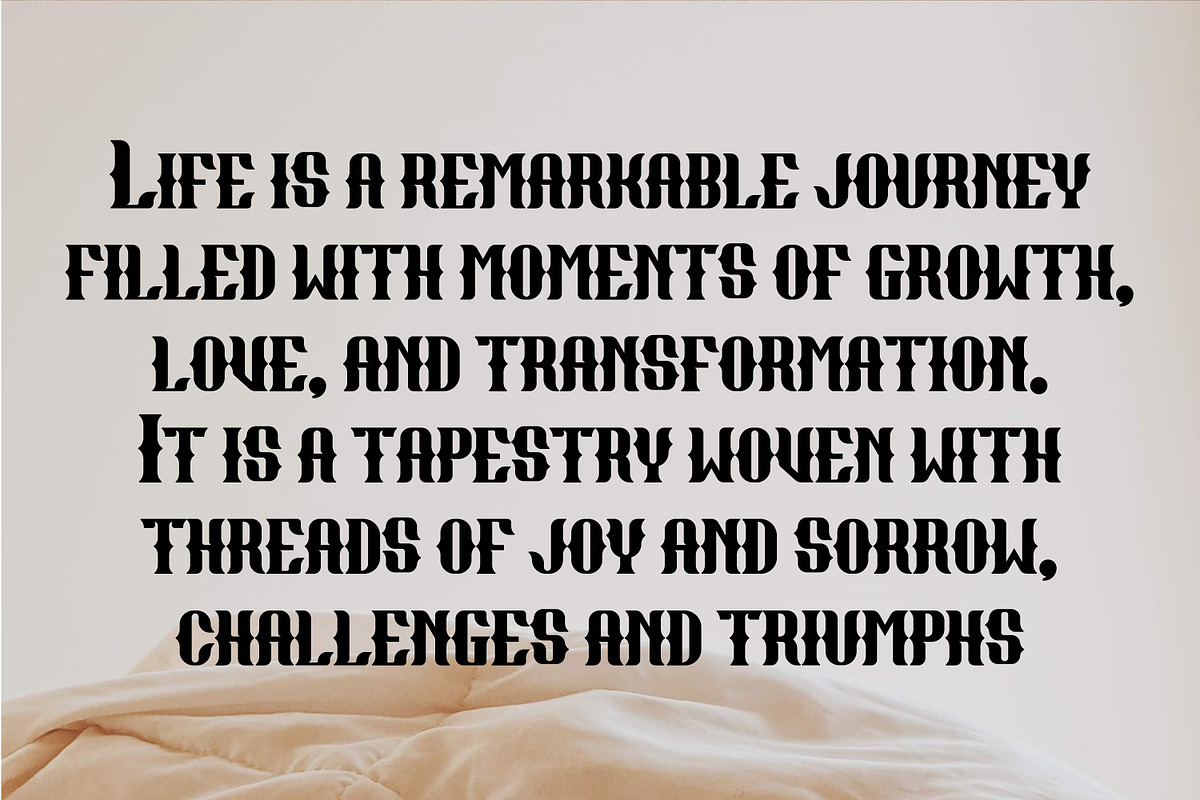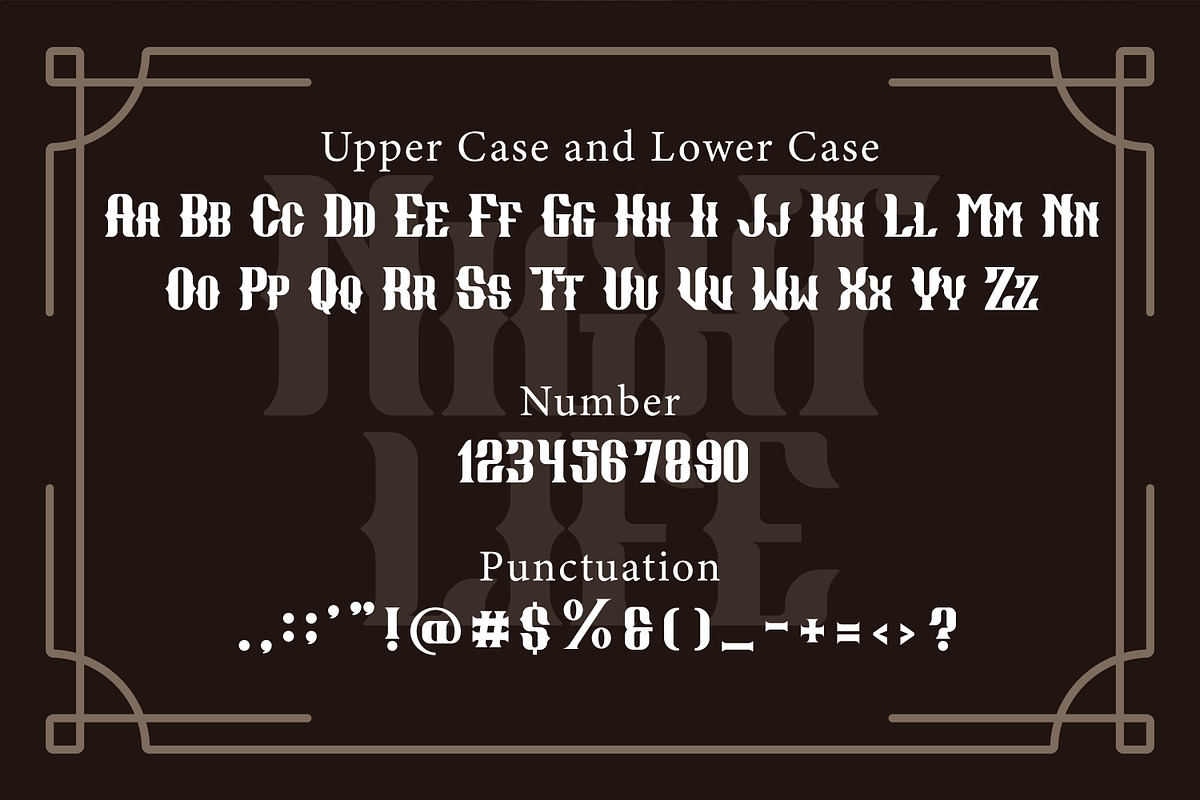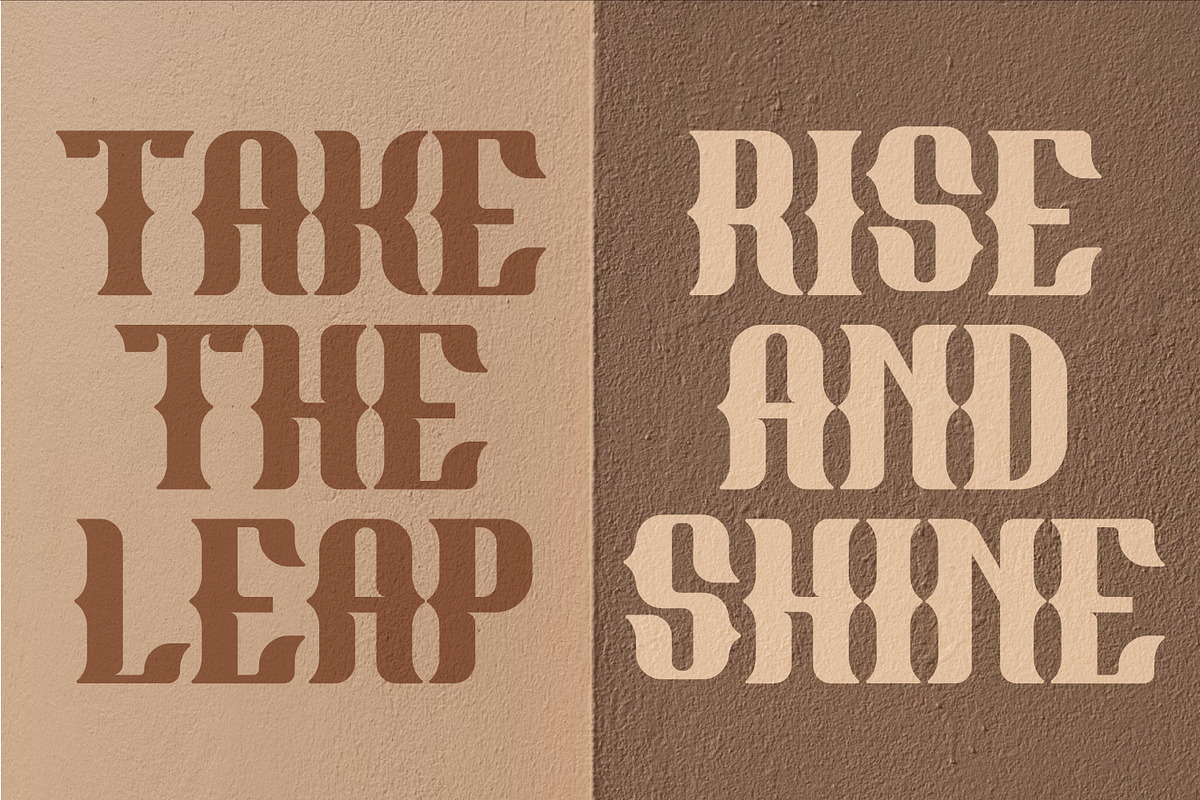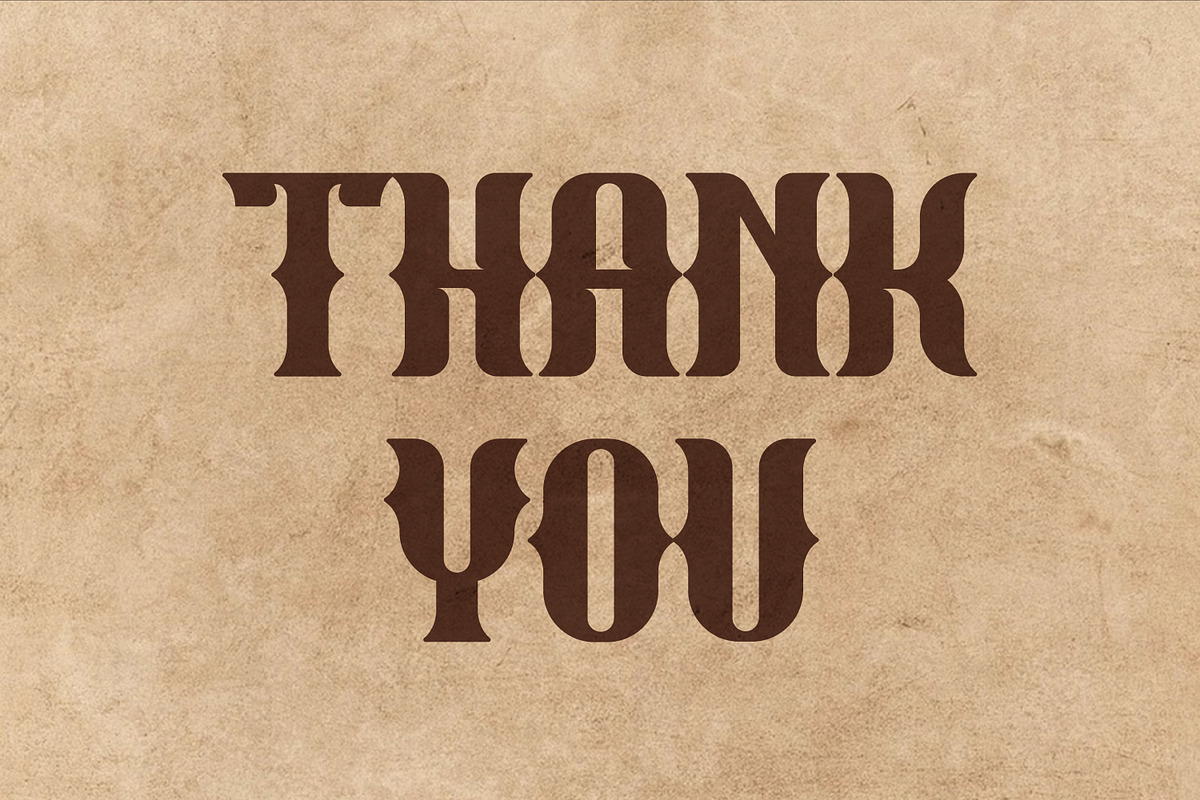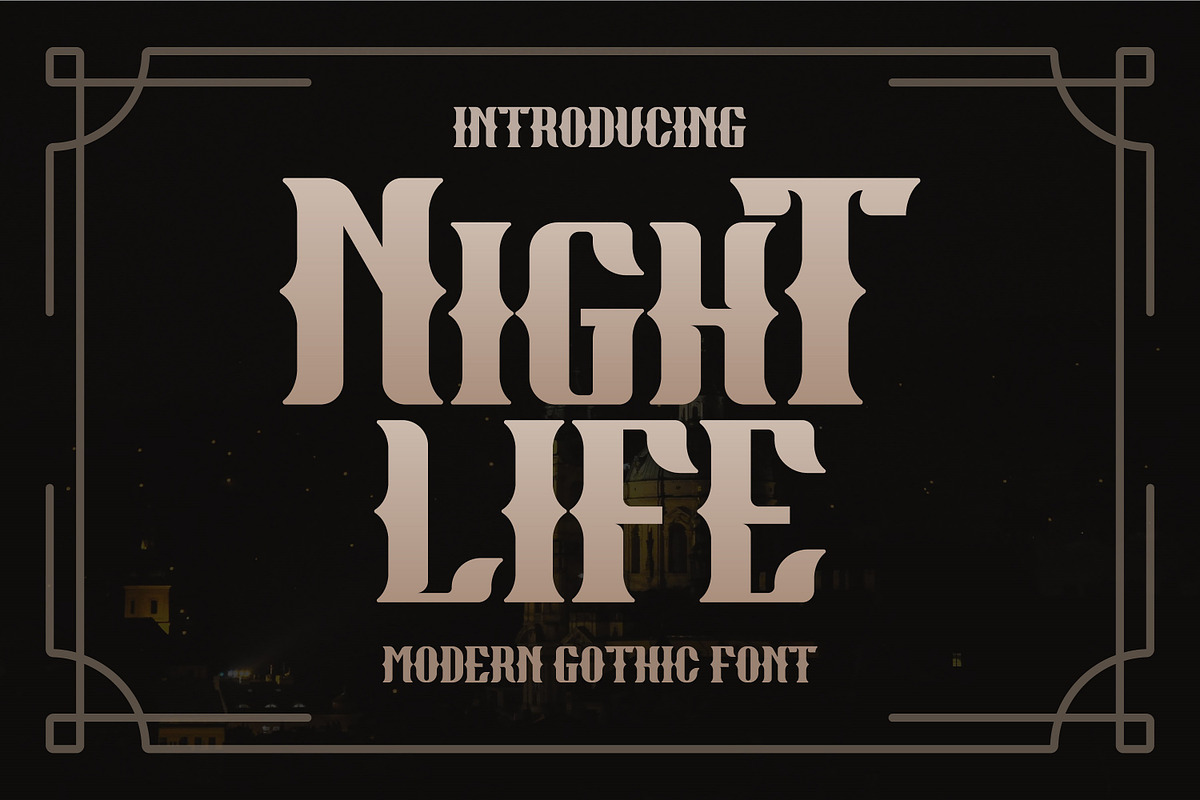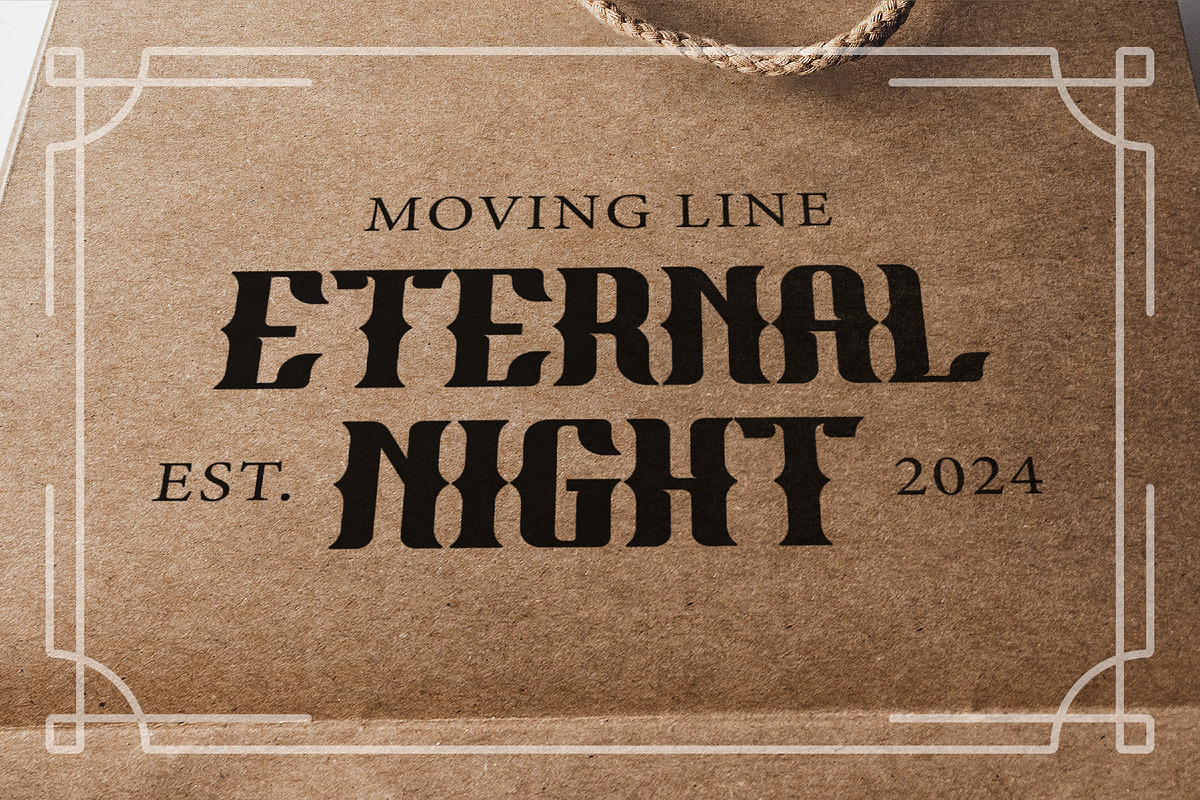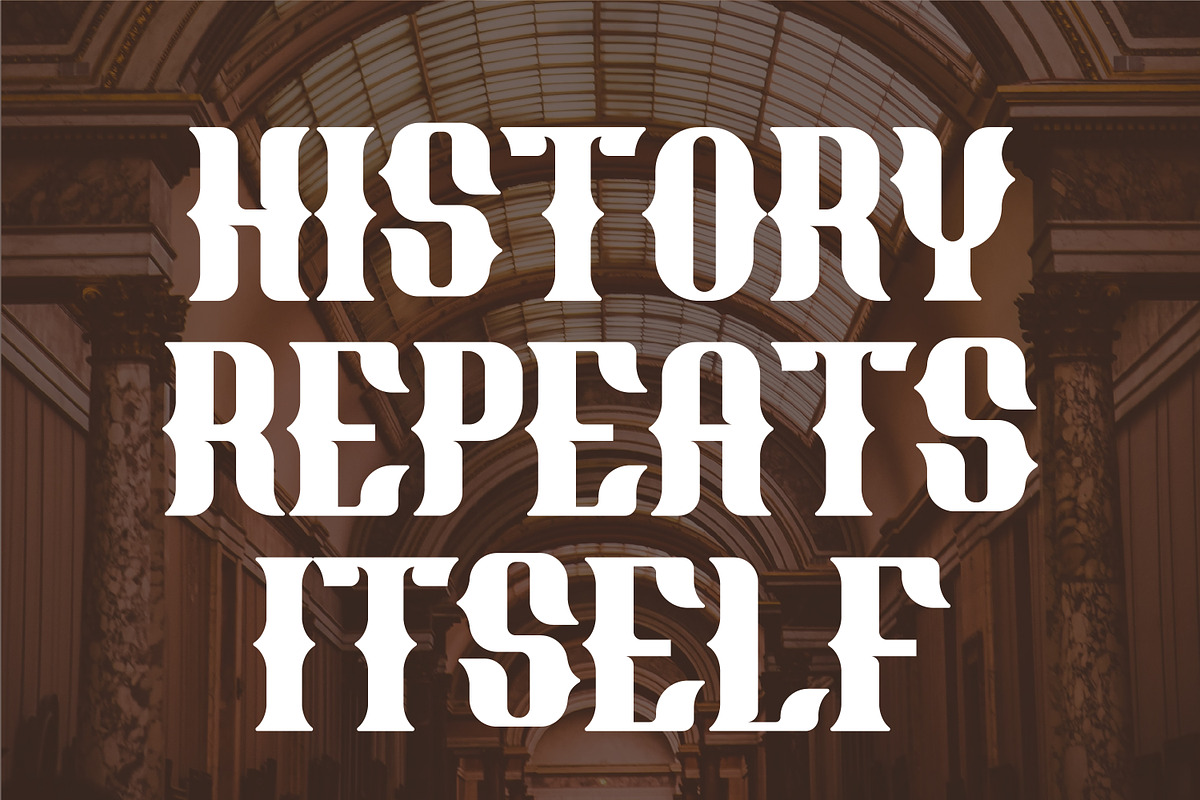
Night Life Modern Gothic
Introducing Night Life: Where Modernity Meets Mystique
Step into the world of contemporary design with Night Life, a modern Gothic font that seamlessly blends sleek sophistication with captivating mystique. Designed to capture attention and evoke intrigue, Night Life is your passport to creating designs that leave a lasting impression.